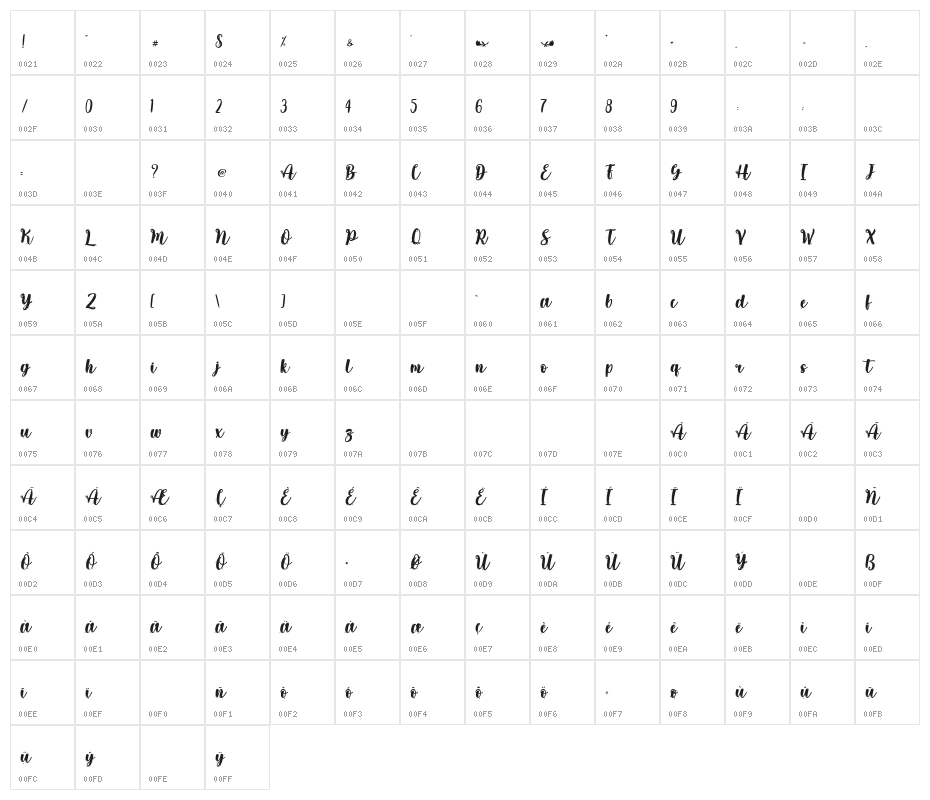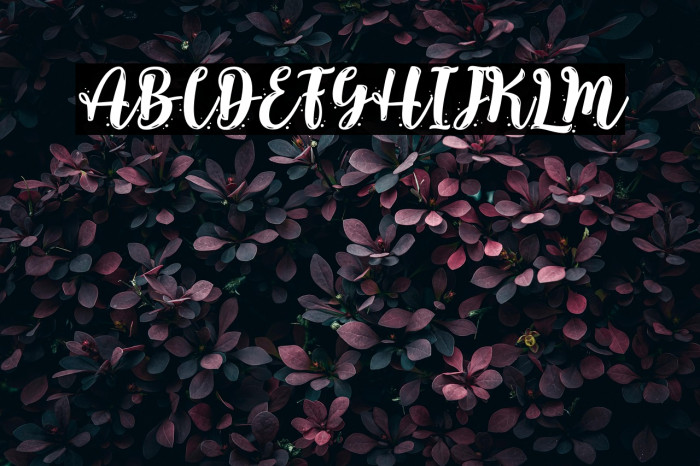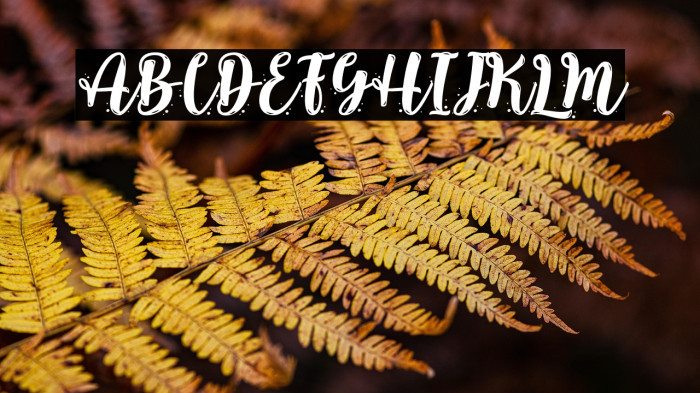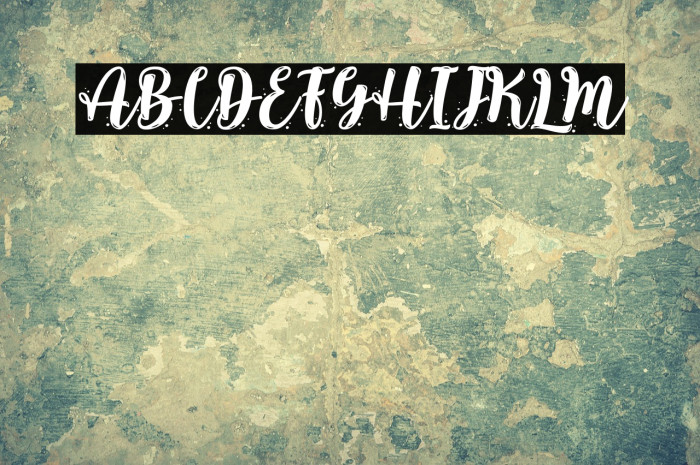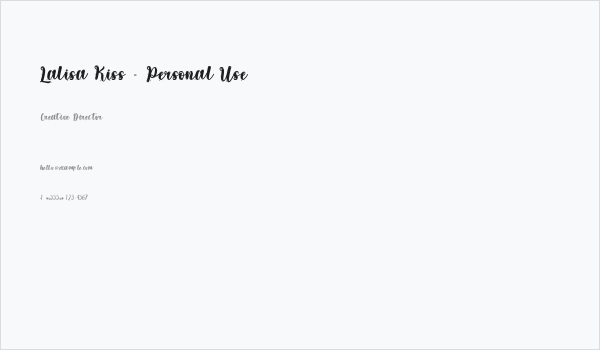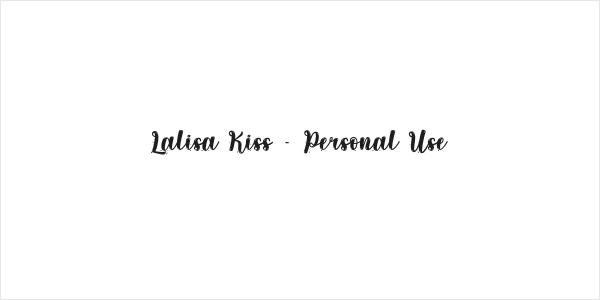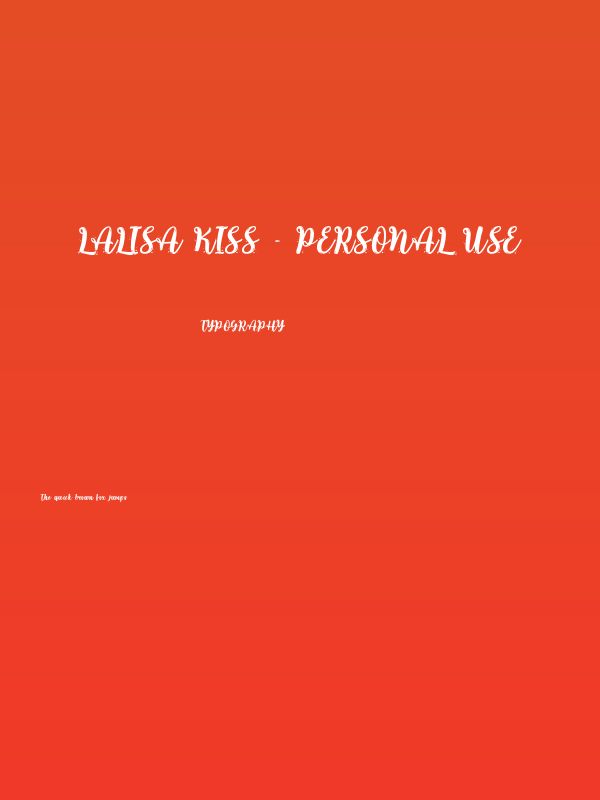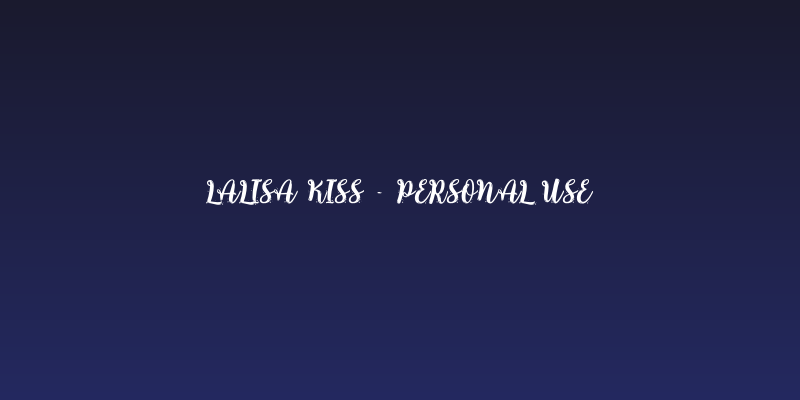
Lalisa Kiss - Personal Use Font
Lalisa Kiss - Personal Use Description
This font features a bold, expressive script style with a hand-painted appearance. The characters are fluid and dynamic, with a slight slant that adds to the casual, artistic feel. The strokes are thick and vary in width, creating a high contrast that enhances its visual impact. The uppercase letters are slightly larger and more ornate, while the lowercase letters maintain a consistent flow. The numbers and special characters are designed to match the overall aesthetic, making it suitable for creative and decorative purposes.